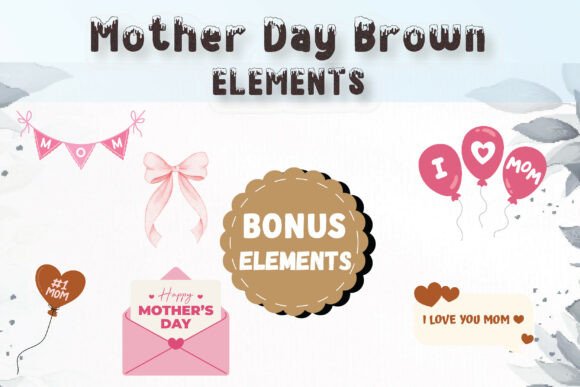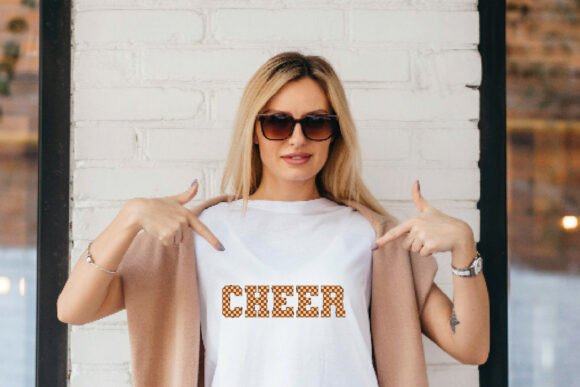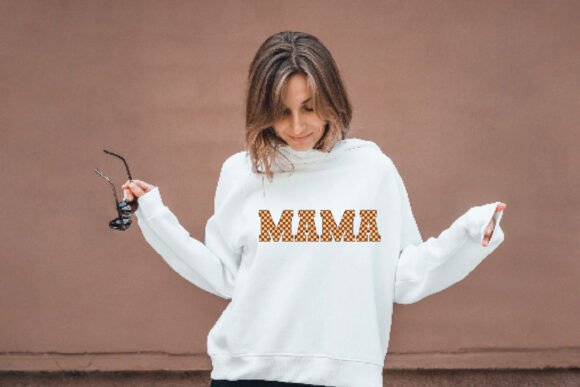
Introduction to Mother Day Brown Font Font
Fonts play a crucial role in design, and the Mother Day Brown Font font is a typeface that brings both character and versatility to any project. Whether you’re working on a branding project, a website, or a print design, the Mother Day Brown Font font offers a unique style that can elevate your work.
Mother Day Brown Cute Mom Alphabet Create warm and stylish designs with this beautiful Mother Day Brown Font.
Designed with a soft and elegant brown theme, this alphabet is perfect for making eye-catching Motherβs Day and family celebration creations Ideal for t-shirts, mugs, stickers, planners, scrapbooking, sublimation projects, greeting cards, and social media graphics.
Key Features of Mother Day Brown Font Font
Why Choose Mother Day Brown Font Font?
The Mother Day Brown Font font is more than just a typeface β it’s a design tool that helps you communicate your message with style and clarity. Its unique character set and versatile design make it suitable for a wide range of applications, from elegant invitations to bold headlines.
With its carefully crafted letterforms and balanced proportions, the Mother Day Brown Font font ensures readability and visual appeal across all mediums.
What makes Mother Day Brown Font font special?
The Mother Day Brown Font font stands out with its unique design, exceptional readability, and versatility across various design applications.